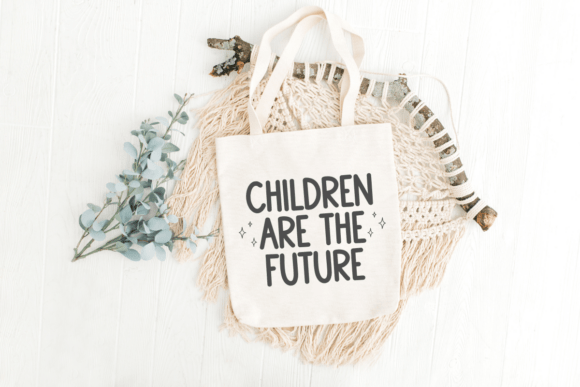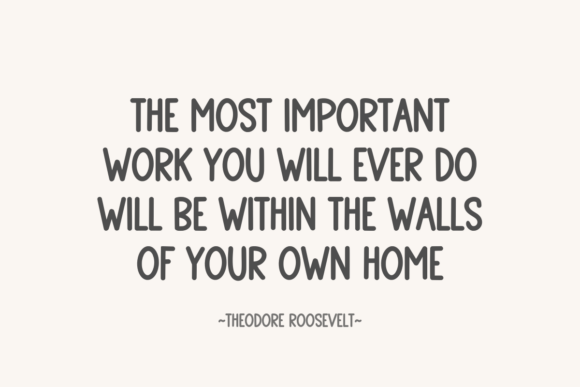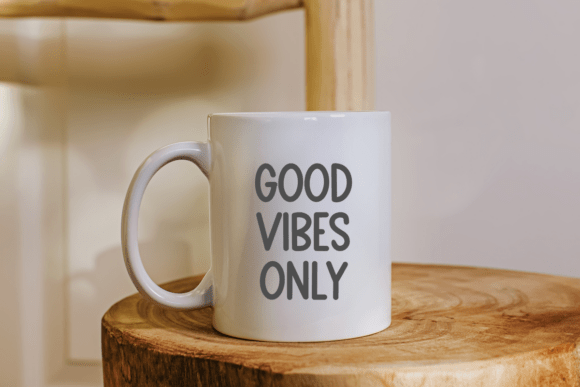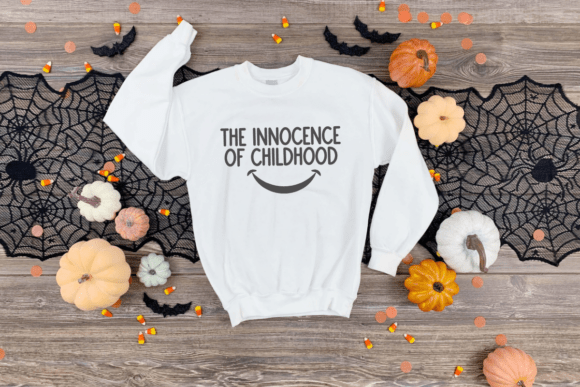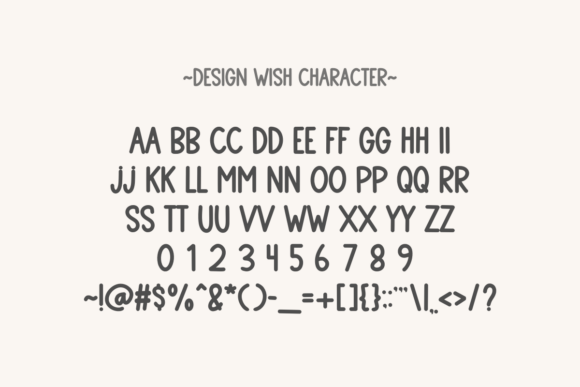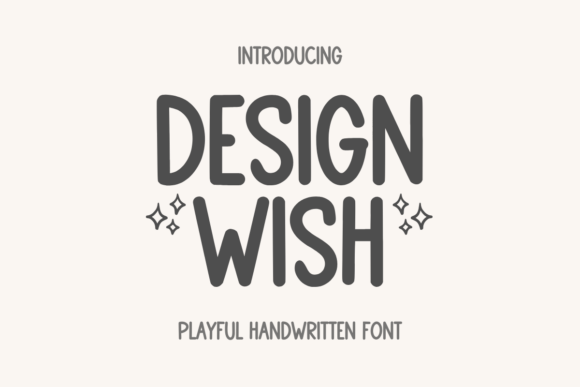
Introducing Design Wish Font: The Perfect Playful Handwritten Font for Crafters and Designers
Are you a crafter, designer, or maker looking for a font that can add a personal touch to your DIY projects? Look no further than the Design Wish font, a playful handwritten font that’s perfect for a variety of creative applications. In this article, we’ll explore the features and benefits of the Design Wish font, and show you how it can elevate your crafts, planners, KDP, stickers, greeting cards, and more.
What is Design Wish Font?
Design Wish is a carefully crafted handwritten font that’s designed to bring a smile to your face. Its cute and friendly style makes it perfect for a wide range of creative projects, from crafty DIY endeavors to professional design work. With its playful and approachable vibe, Design Wish font is ideal for crafters, designers, and makers who want to add a personal touch to their creations.
Features of Design Wish Font
So, what makes Design Wish font so special? Here are just a few of its key features:
- Playful handwritten style: Design Wish font has a carefree, handwritten feel that’s perfect for adding a personal touch to your projects.
- Cute and friendly: The font’s adorable style makes it perfect for creating crafts, planners, and other DIY projects that are fun and engaging.
- Versatile: Design Wish font can be used for a wide range of applications, including crafts, planners, KDP, stickers, greeting cards, and more.
- Compatible with Cricut, sublimation, and creative DIY projects: Whether you’re working with Cricut, sublimation, or other creative DIY projects, Design Wish font is the perfect choice.
Use Cases for Design Wish Font
So, how can you use Design Wish font in your creative projects? Here are just a few ideas to get you started:
- Crafts: Use Design Wish font to add a personal touch to your crafts, such as handmade cards, gift tags, and other DIY projects.
- Planners: Add a playful touch to your planners and journals with Design Wish font, perfect for bullet journaling, daily planning, and more.
- KDP: Use Design Wish font to create eye-catching KDP (Kindle Direct Publishing) covers, interior pages, and marketing materials.
- Stickers: Create adorable stickers with Design Wish font, perfect for decorating planners, journals, and other DIY projects.
- Greeting cards: Use Design Wish font to create heartfelt and playful greeting cards for special occasions.
Benefits of Using Design Wish Font
So, why should you choose Design Wish font for your creative projects? Here are just a few benefits:
- Adds a personal touch: Design Wish font’s playful handwritten style adds a personal touch to your projects, making them more engaging and relatable.
- Easy to read: The font’s clear and legible design makes it easy to read, even at small sizes.
- Versatile: Design Wish font can be used for a wide range of applications, making it a great addition to your font library.
- Time-saving: With Design Wish font, you can create professional-looking projects in no time, saving you time and effort.
In conclusion, Design Wish font is a playful handwritten font that’s perfect for crafters, designers, and makers. With its cute and friendly style, versatile use cases, and numerous benefits, it’s an ideal choice for adding a personal touch to your DIY projects. Whether you’re working on crafts, planners, KDP, stickers, greeting cards, or more, Design Wish font is sure to bring a smile to your face and a professional touch to your creations.